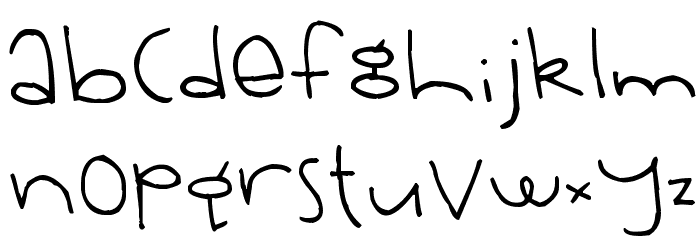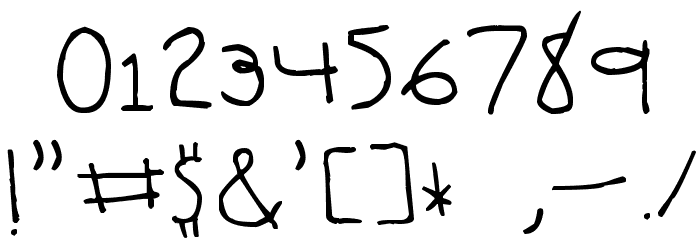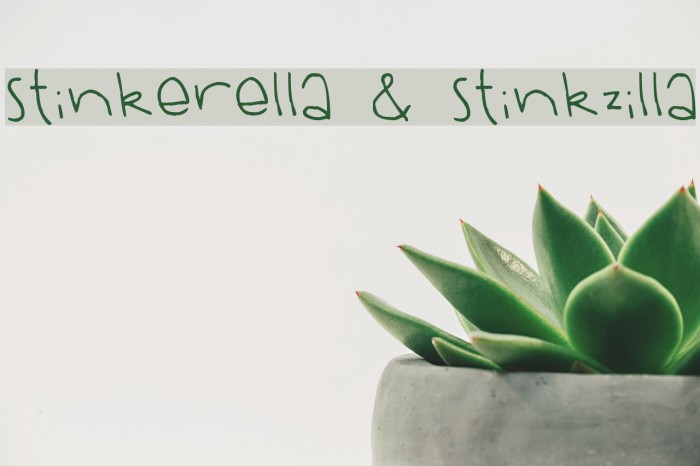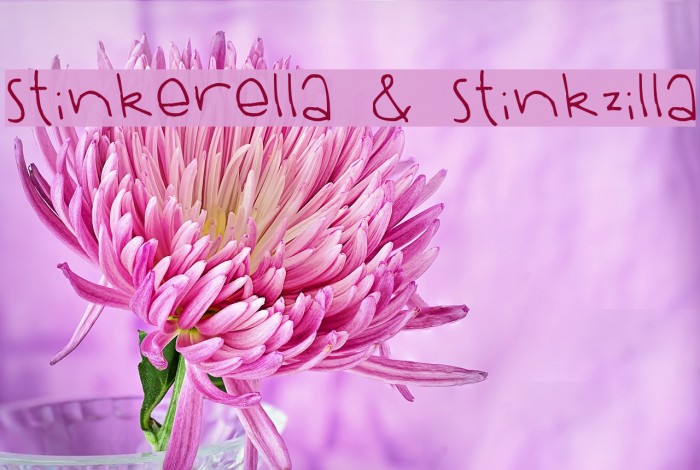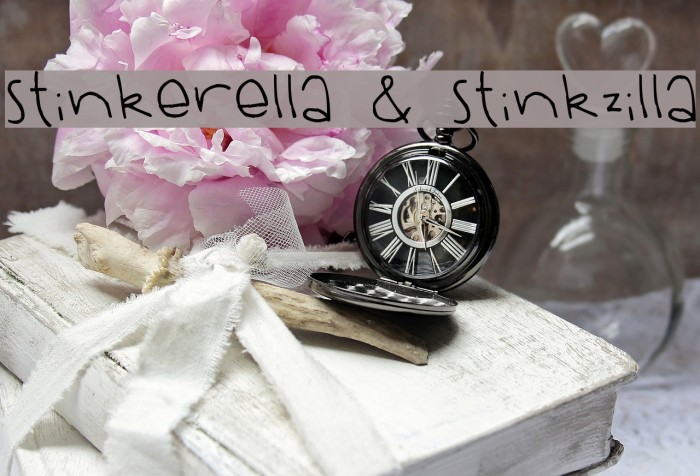
Stinkerella & Stinkzilla Font
This font features a playful and whimsical handwritten style, characterized by its irregular and slightly quirky letterforms. Each character appears to be drawn with a casual, freehand approach, giving it a personal and informal touch. The strokes are uneven, with varying thickness that adds to its charm and uniqueness. The overall appearance is lively and energetic, making it suitable for creative and fun projects. The numerals and special characters maintain the same playful aesthetic, ensuring consistency throughout the typeface.
A playful, handwritten font with quirky, irregular letterforms.
- Proposed Projects: Ideal for children's books, greeting cards, playful branding, and informal invitations.
- Overall Style: Playful
- Use Case: Logos, Headlines, Informal Text